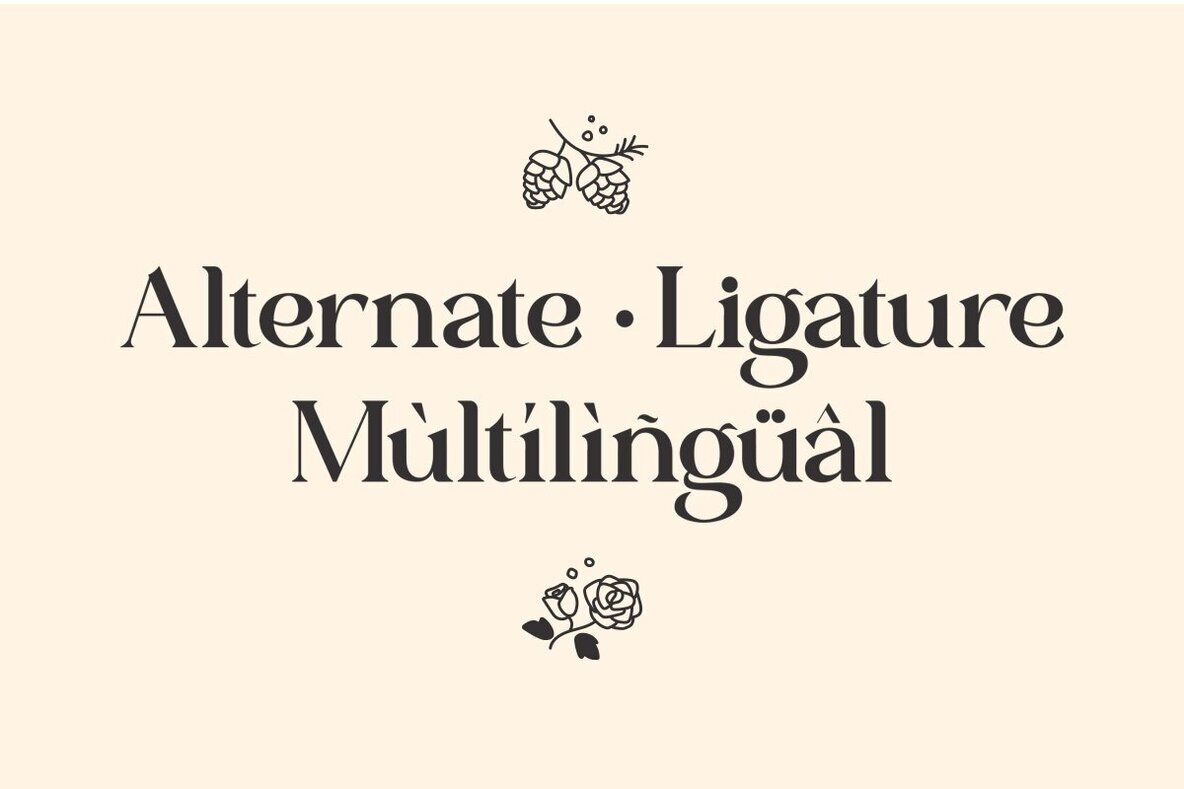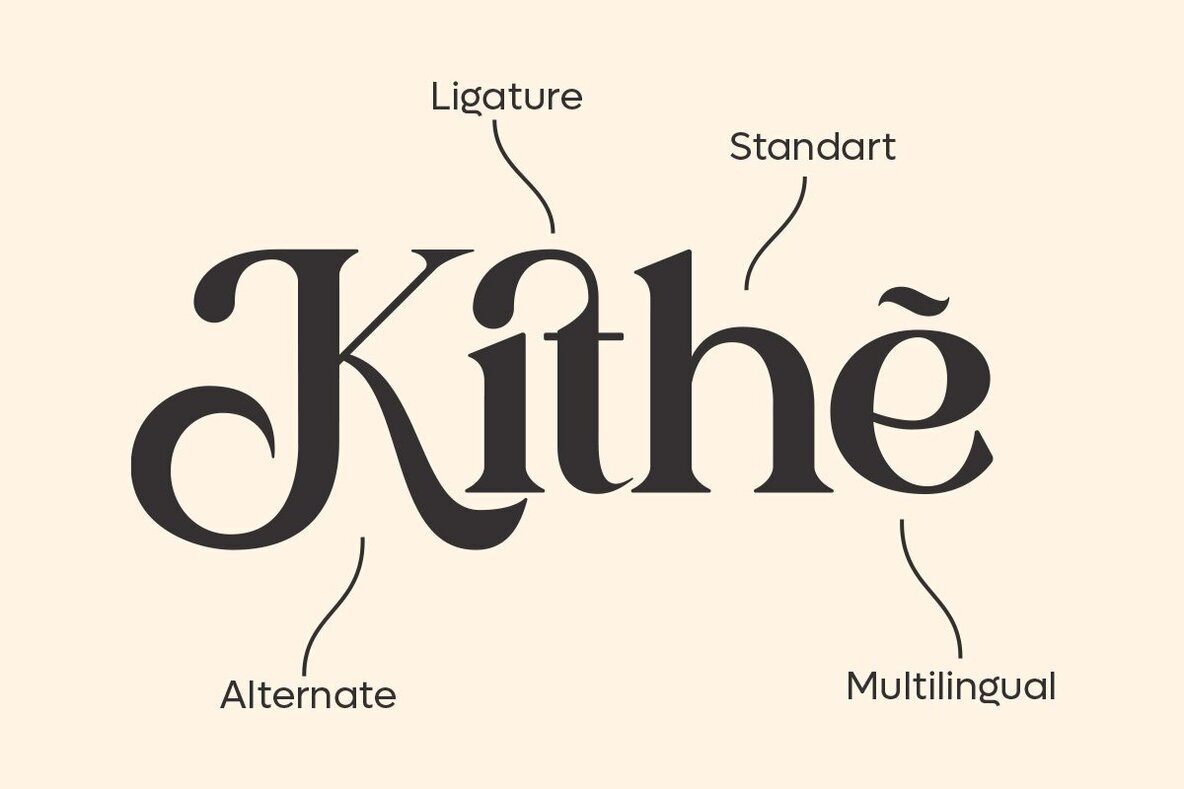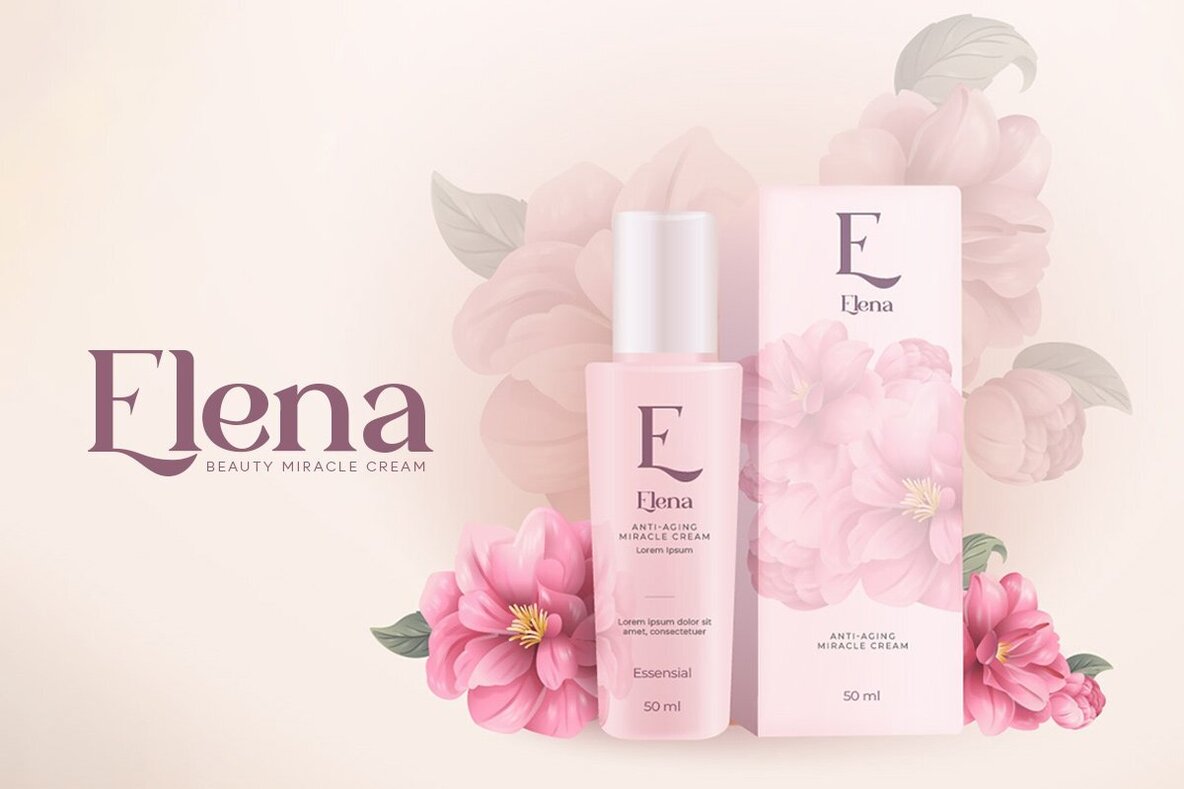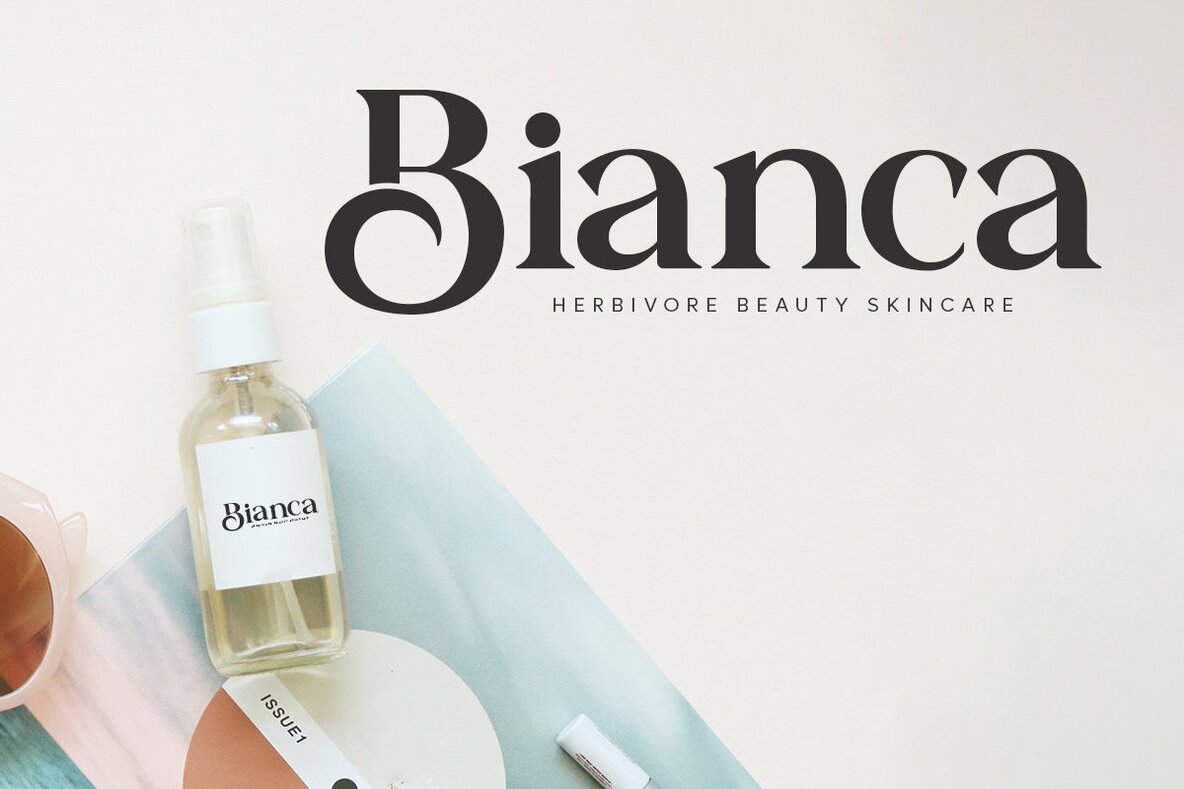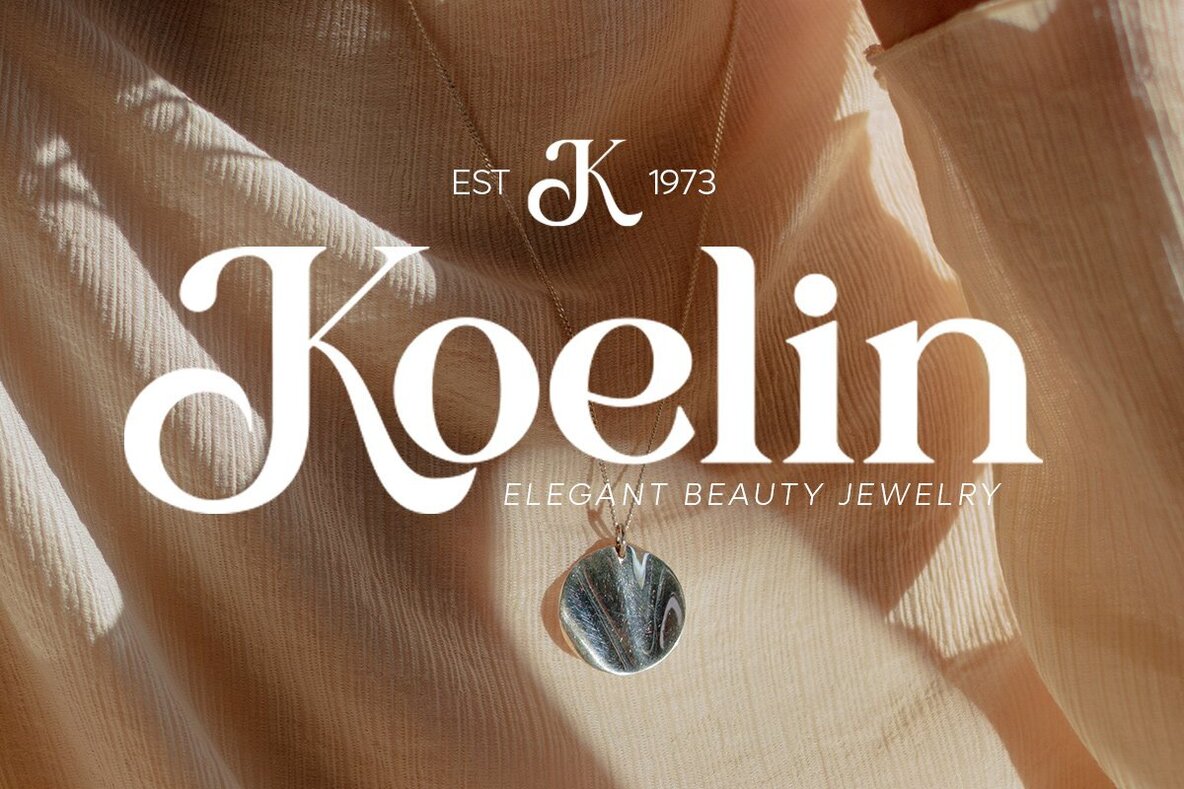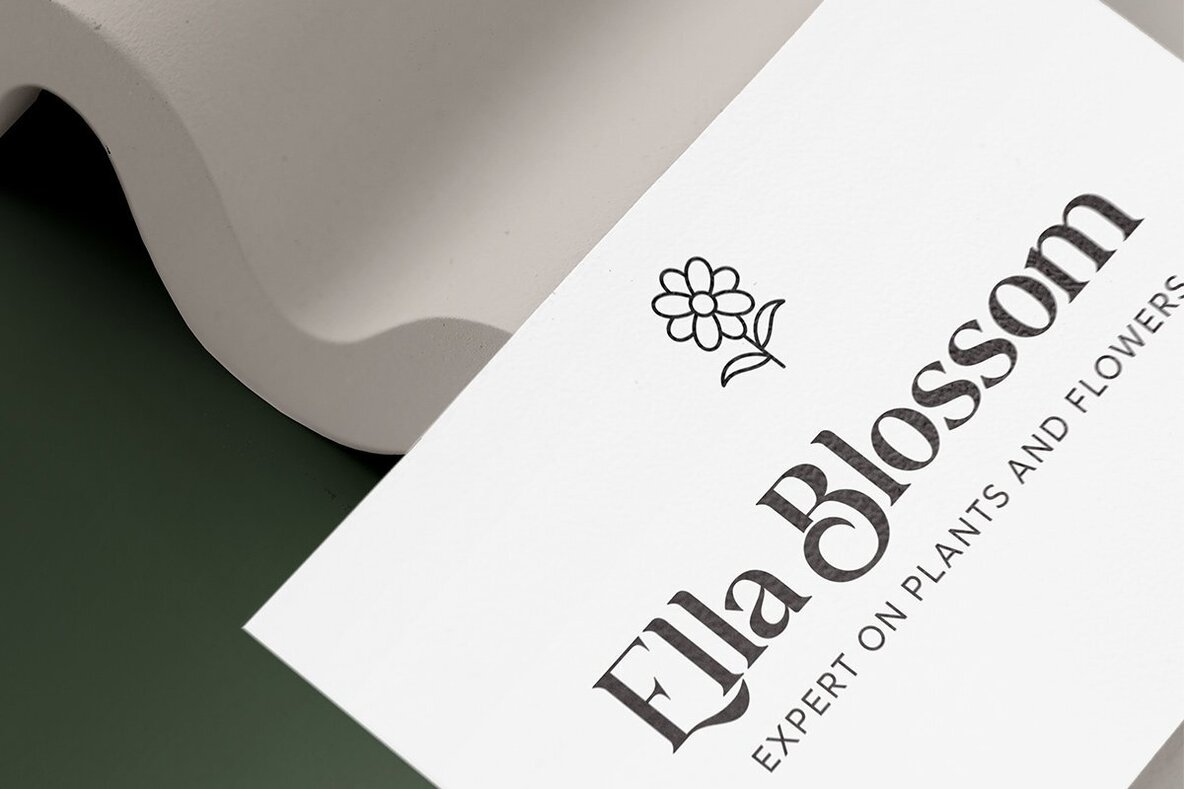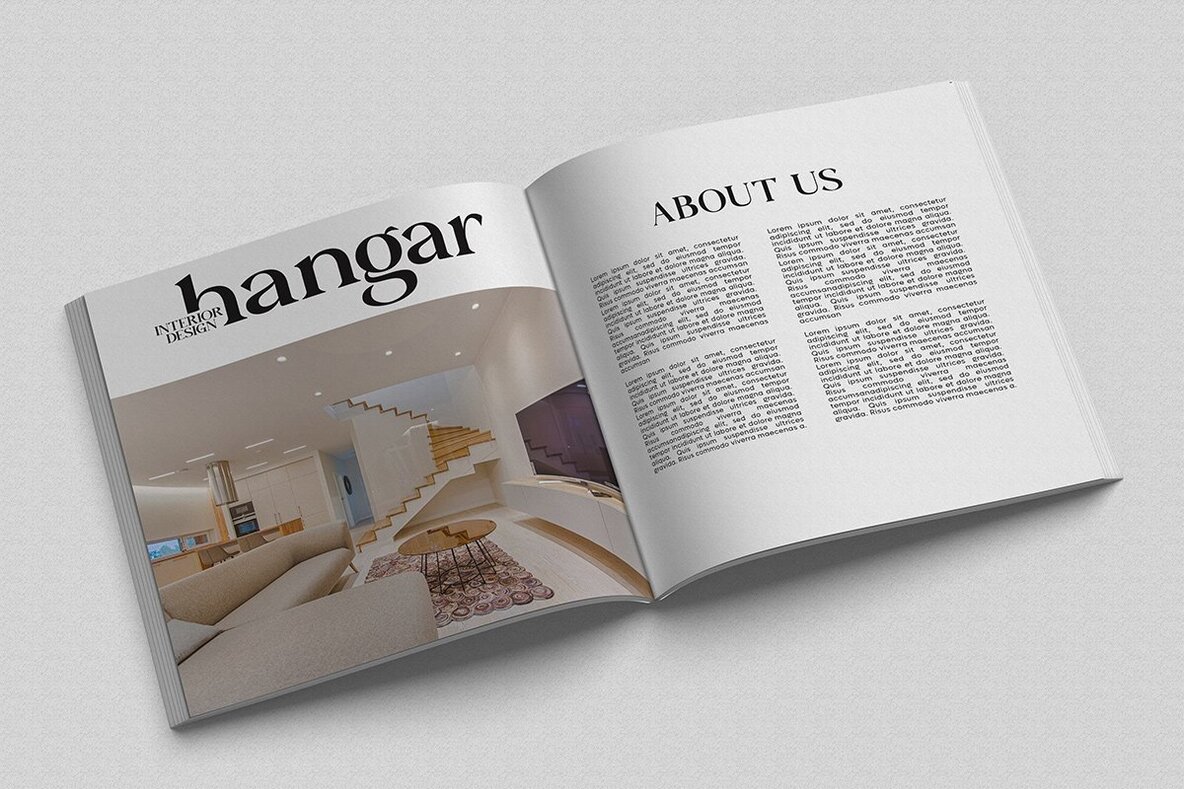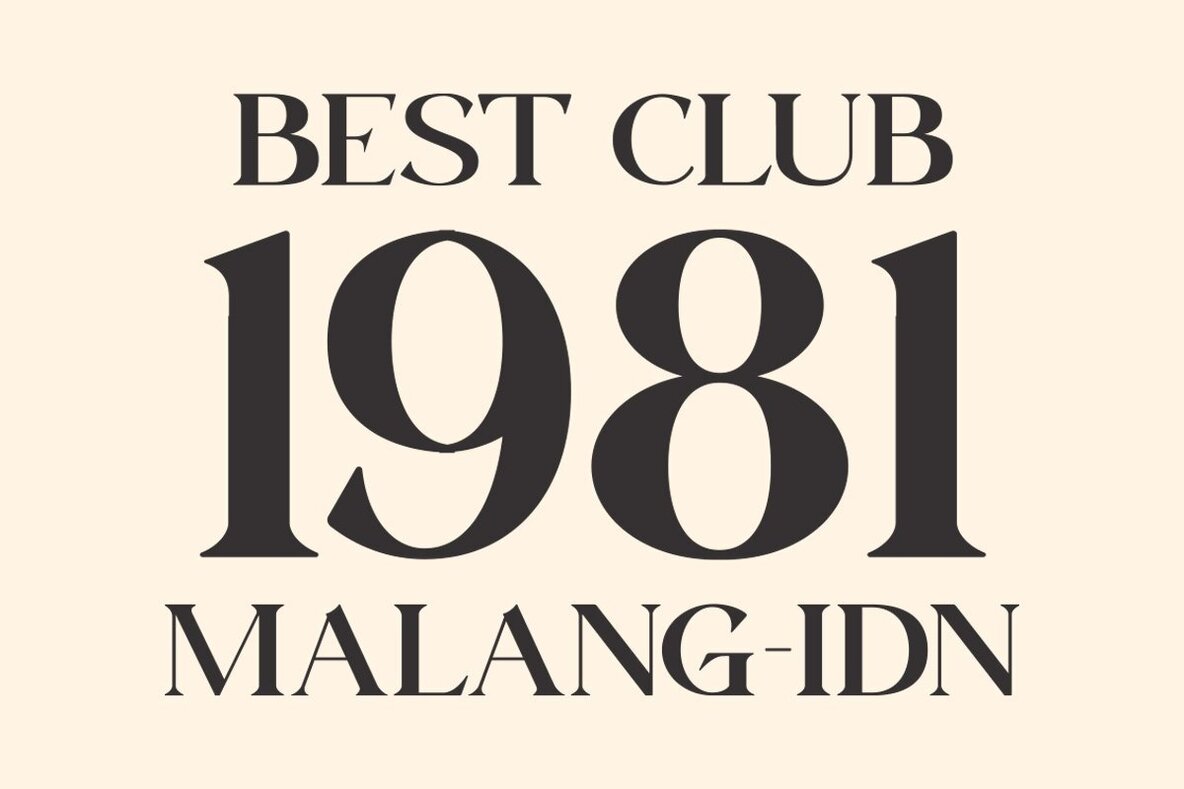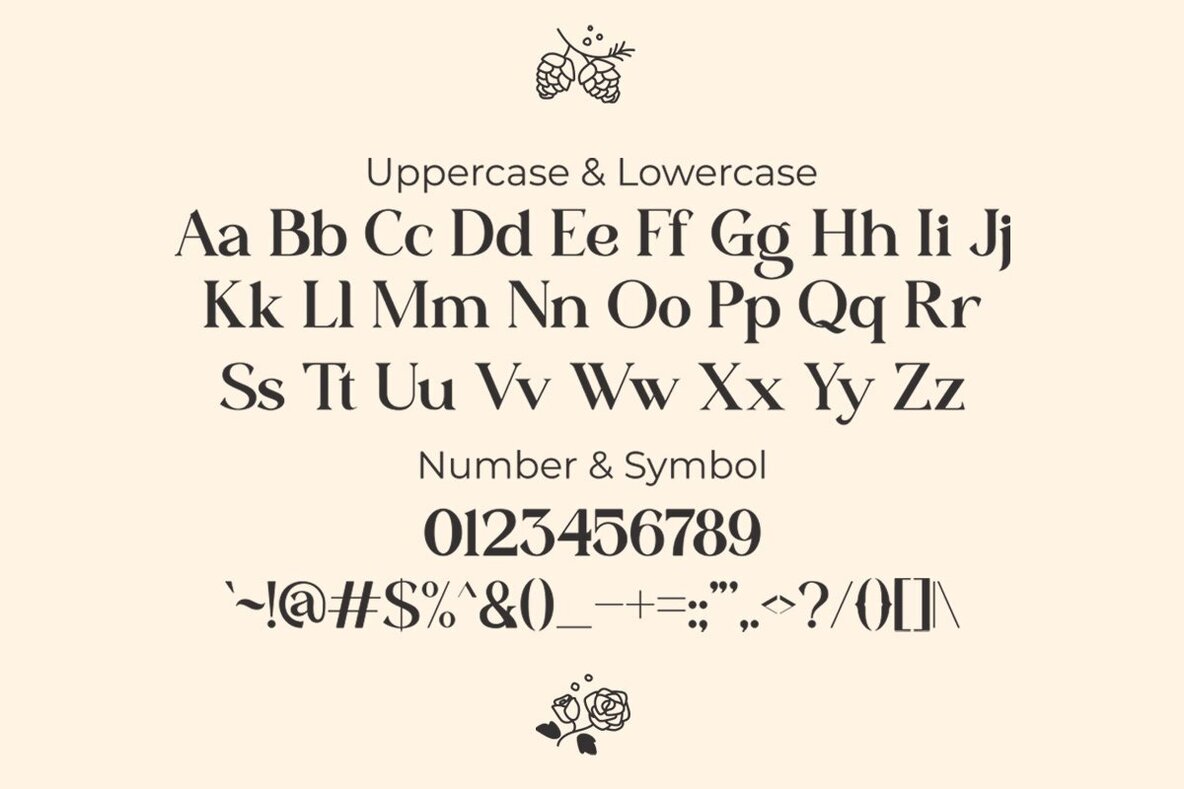
Jitter Font
Jitter Regular
Jitter is a Beautiful modern serif typeface Unique alternate and ligature, multilingual support . This typeface is perfect for an Display typeface, elegant & luxury logo, Magazine, fashion brand , cosmetic brand, fashion promotion, modern advertising design, invitation card, art quote, home decoration , book/cover titles, special events, and much more.